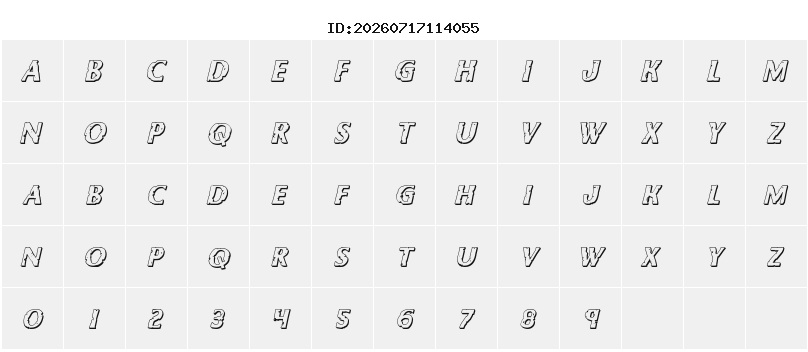
• Font Name: Body Swipers 3D Italic
• Full Font Name: Body Swipers 3D Italic
About Body Swipers 3D Italic.ttf
Body Swipers 3D Italic.ttf is a modern, elegant sans-serif font designed for ultimate readability and visual harmony. Perfect for branding, headlines, web design, and print materials.